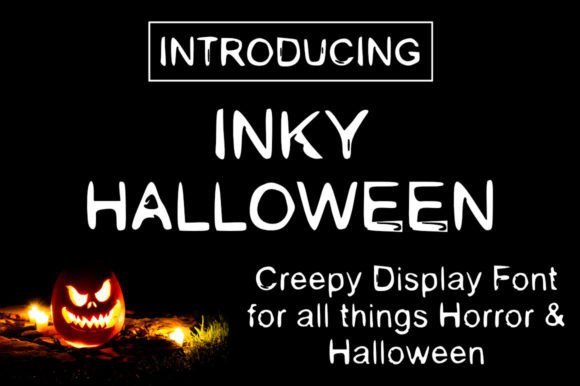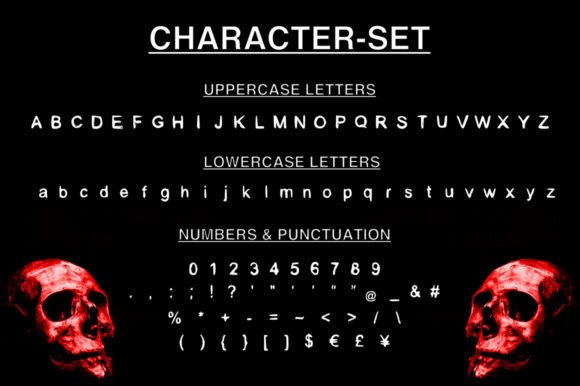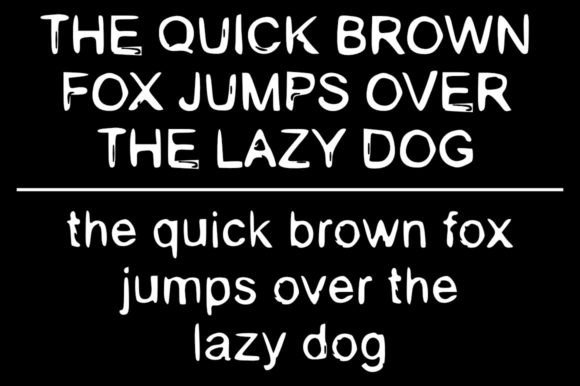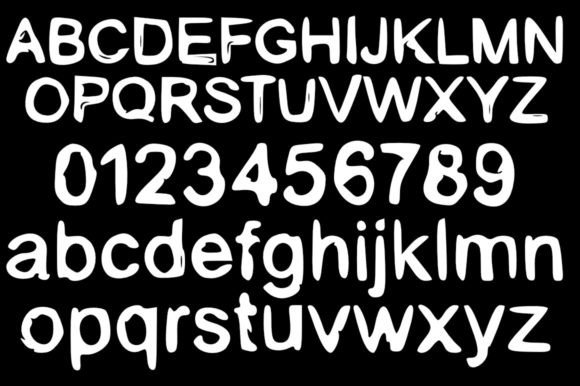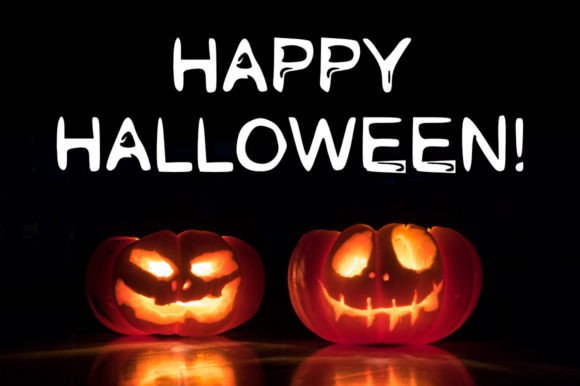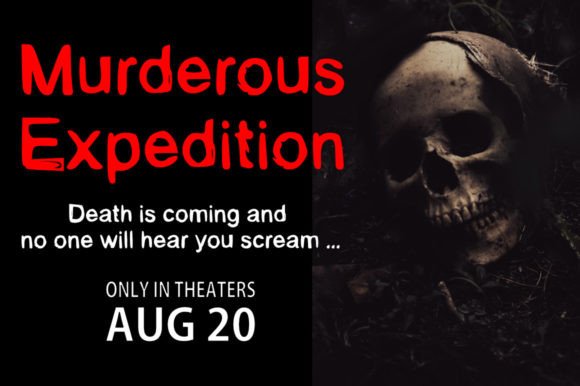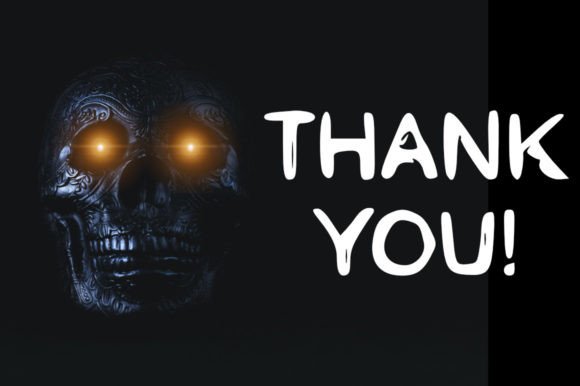
Unleash the Spooky Spirit: Inky Halloween Font
As the clock strikes midnight on a crisp autumn evening, the air is filled with an eerie sense of excitement. You’re rummaging through your collection of fonts, searching for the perfect one to bring your Halloween project to life. The jack-o-lanterns are carved, the cobwebs are hanging, and the monsters are ready – but what about the font?
Enter Inky Halloween, a delightfully spooky display font that’s sure to cast a spell on your audience. This whimsical font is designed to add a touch of macabre magic to your horror-themed projects, from eerie invitations to haunted house signage. With its slightly scary vibe, Inky Halloween Font is the perfect addition to any designer’s toolkit.
As a designer, you know how valuable a well-chosen font can be. Inky Halloween Font offers a unique blend of style and substance that’s sure to set your projects apart from the rest. So why settle for a boring, generic font when you can unleash the spooky spirit with Inky Halloween Font?
Inky Halloween Font Key Features
- Font Styles: The Inky Halloween Font comes in a variety of styles, including regular, bold, italic, and bold italic, offering users flexibility in their designs.
- Unique Characteristics: The Inky Halloween Font features a unique, hand-drawn design with intricate details and textures, giving it a spooky and festive feel.
Designer Review: Inky Halloween Font
Overall, I was impressed with the Inky Halloween Font. It’s a unique and creative take on traditional Halloween typography. ✨ The font’s gothic and spooky aesthetic is perfect for Halloween-themed designs, from invitations to decorations. The intricate details and textures add a level of depth and interest that makes the font stand out.
One of the things that works well about this font is its versatility. It’s suitable for both digital and print designs, and the font’s bold and playful nature makes it easy to use in a variety of contexts. ✨ The font also includes a range of styles and weights, which gives designers a lot of flexibility when it comes to choosing the right look for their project.
- ⚠️ The font may not be suitable for all types of Halloween designs. While it’s perfect for spooky and gothic themes, it may not be the best choice for more lighthearted or family-friendly designs.
- ⚠️ The font’s intricate details and textures may make it difficult to read in certain contexts, such as in small text sizes or at a distance.
Overall, I would recommend the Inky Halloween Font to designers who are looking for a unique and creative take on traditional Halloween typography. While it may have some limitations, the font’s versatility and playfulness make it a great choice for a variety of projects.
To get the most out of the Inky Halloween font, try combining it with bold or italic text to add emphasis. You can also experiment with different font sizes and colors to create a spooky atmosphere.
The Inky Halloween font is perfect for:
- Halloween invitations and party decorations
- Spooky social media posts and graphics
- Creepy craft projects and DIY decor